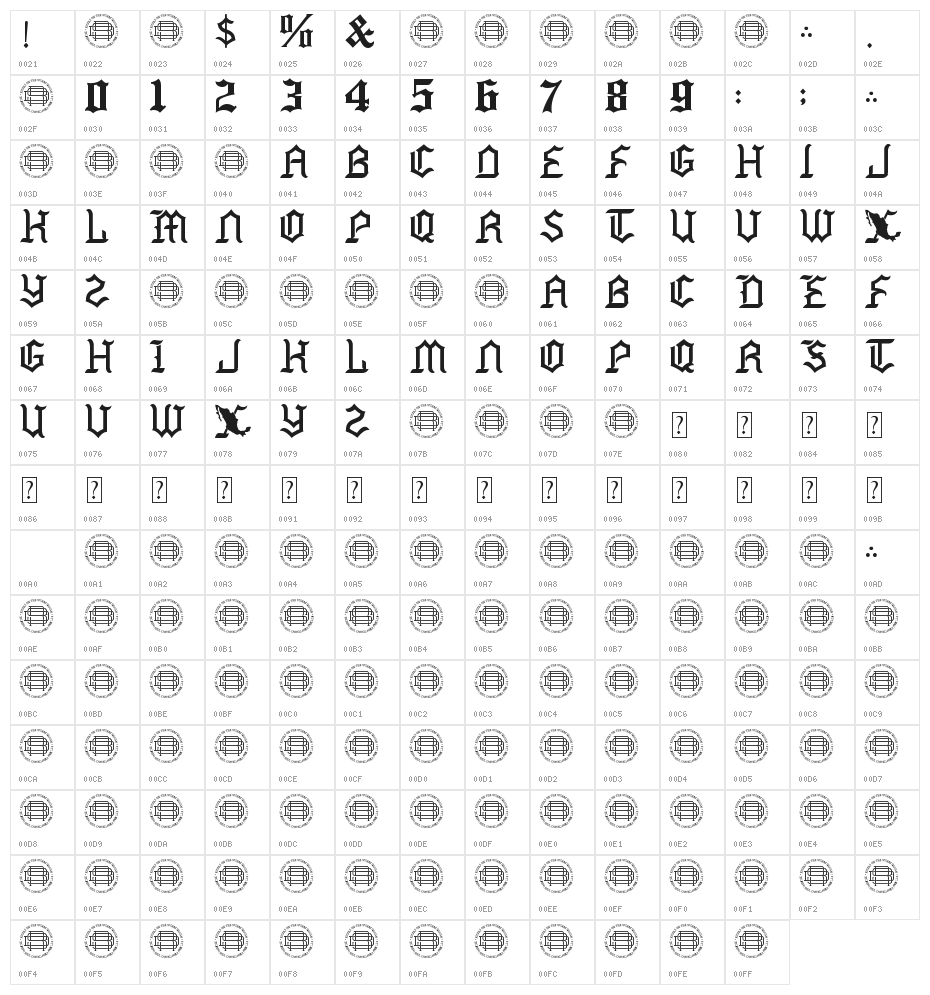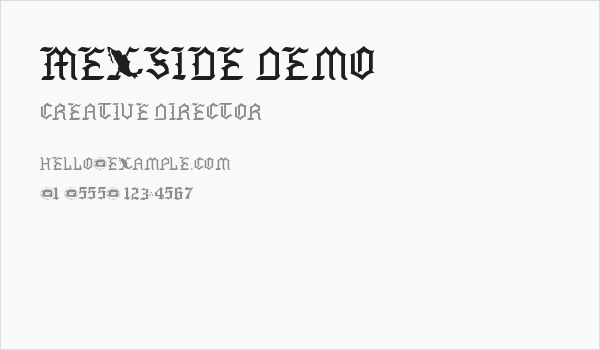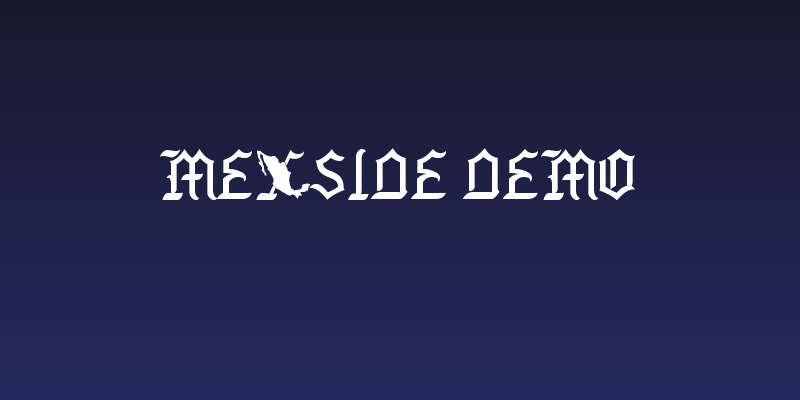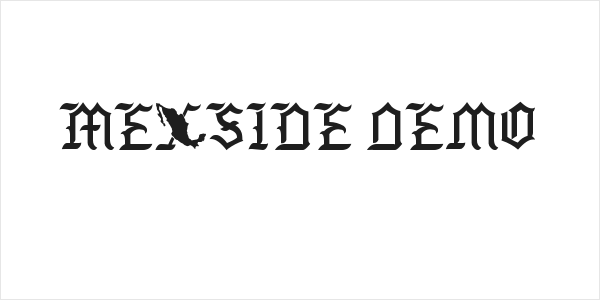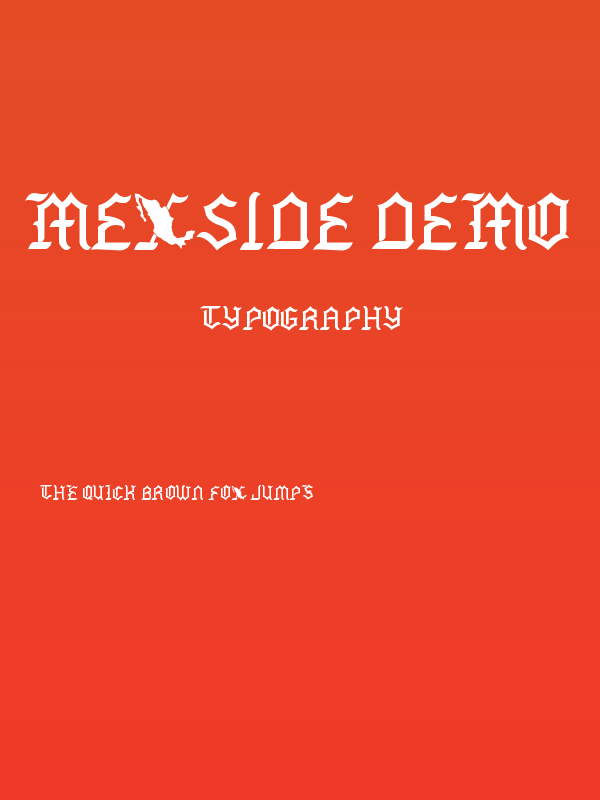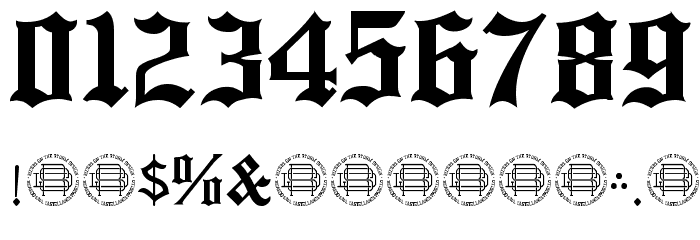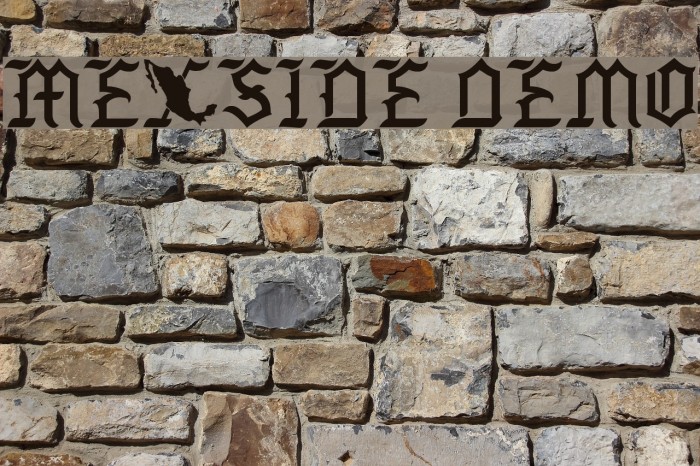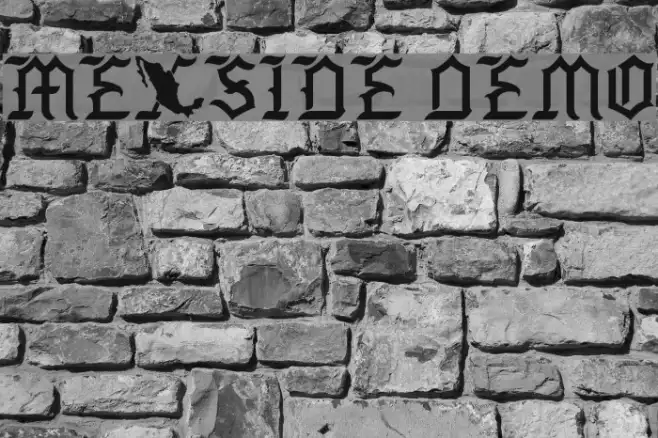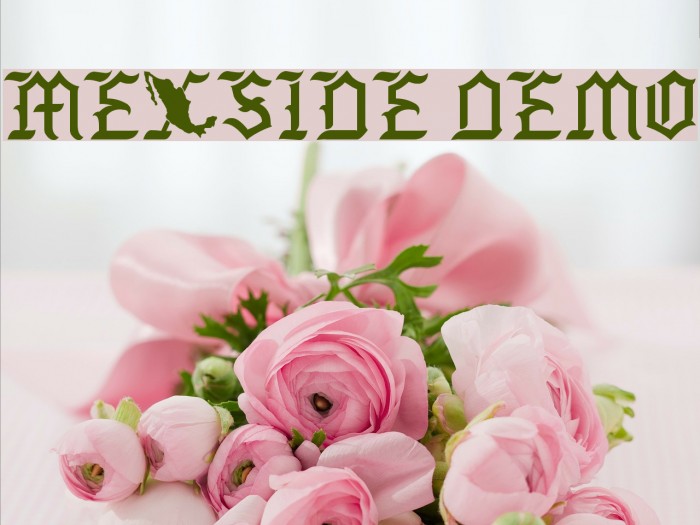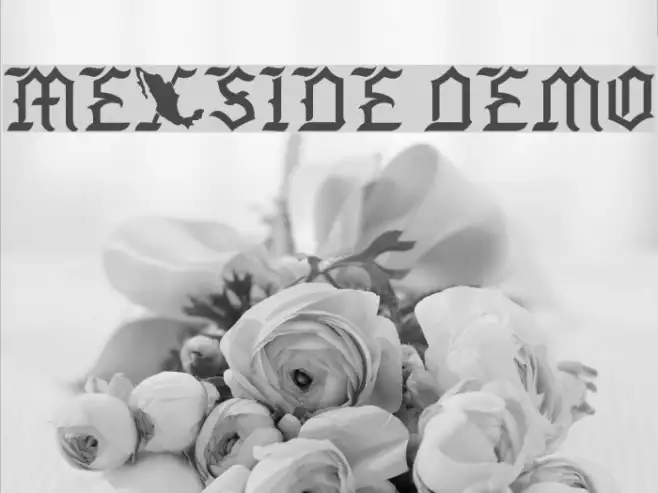
Mexside Demo Font
Mexside Demo Description
This font features a bold and striking design, reminiscent of traditional blackletter styles with a modern twist. The characters are sharply angular with pronounced serifs, giving them a strong and authoritative presence. The uppercase letters are particularly elaborate, with intricate details that add a sense of elegance and complexity. The lowercase letters maintain the same boldness but with slightly more simplicity, ensuring readability. The numerals are equally bold and consistent with the overall style, making them suitable for impactful displays. Special characters are included, maintaining the same stylistic integrity, which makes this font versatile for various uses.
| Use Case | Logos, Headlines, Posters |
| Proposed Projects | Ideal for branding, poster design, tattoos, and any project requiring a bold, traditional yet modern aesthetic. |